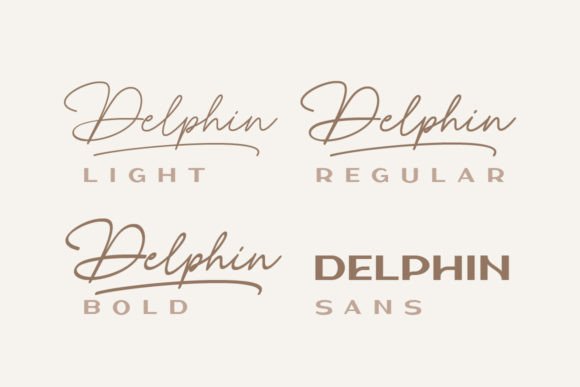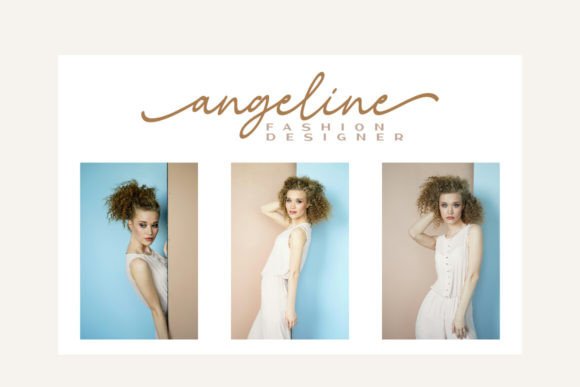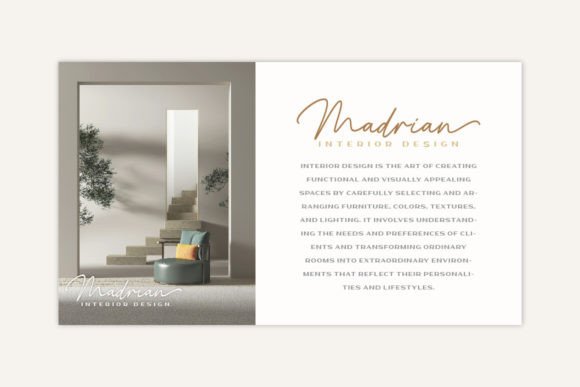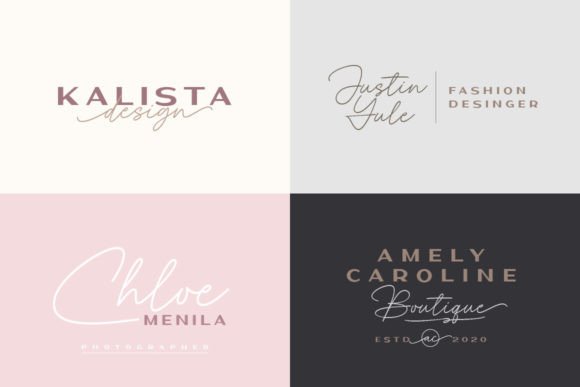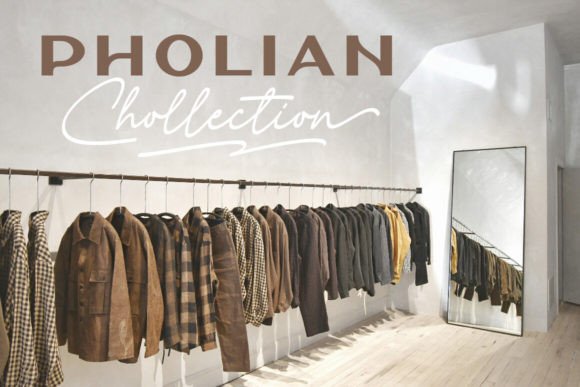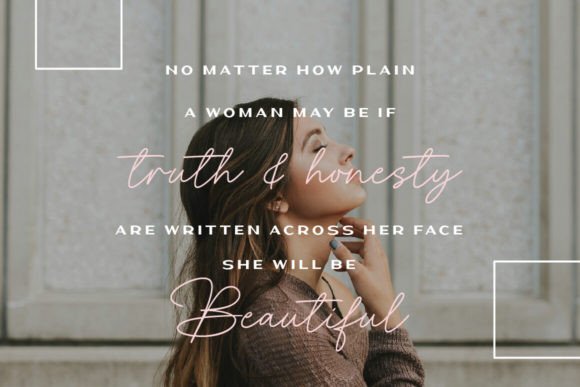
The Delphin Font: A Beautiful Handwritten Script and Stylish Sans-Serif Pair
As a designer, I’ve had my fair share of font struggles. I recall working on a project where I needed a font that exuded elegance and sophistication. My client wanted a design that would make their brand stand out, but I was stuck with a bland, generic font that just wouldn’t cut it. That’s when I discovered the Delphin font, a stunning pair of handwritten script and stylish sans-serif fonts that instantly elevated my design game.
A Personal Review: What I Love and What I Don’t
- 💫 Elegant swashes at the beginning and end of each letter add a touch of sophistication
- ✅ PUA encoded for easy access to amazing glyphs and ligatures
- 🌈 A beautiful contrast between the handwritten script and stylish sans-serif fonts
- 👍 Highly versatile and suitable for various design projects, from branding to invitations
- ⚠️ Some users may find the font’s elegance and swashes overwhelming or too ornate for certain projects
- 🤔 Limited use of the font in very small sizes, as the swashes and details may become lost
The Delphin font was designed with the intention of creating a beautiful, elegant, and versatile font pair that would inspire designers to create stunning works of art. The designer, who wishes to remain anonymous, drew inspiration from classic calligraphy and modern typography to create a unique and captivating font.
Q: What is PUA encoding, and how does it benefit the Delphin font?
A: PUA (Private Use Area) encoding allows designers to access a wide range of glyphs and ligatures, making it easier to create unique and customized designs. In the case of the Delphin font, PUA encoding enables users to access the beautiful swashes and glyphs with ease.
Q: How do I access the swashes and glyphs in the Delphin font?
A: To access the swashes and glyphs, type “a1” for the initial swash and “a2” for the final swash. This method applies to both uppercase and lowercase characters.
Q: Is the Delphin font suitable for body text?
A: While the Delphin font is beautiful and elegant, it may not be the best choice for body text due to its ornate and decorative nature. However, it can be used for short paragraphs or captions where a touch of elegance is desired.